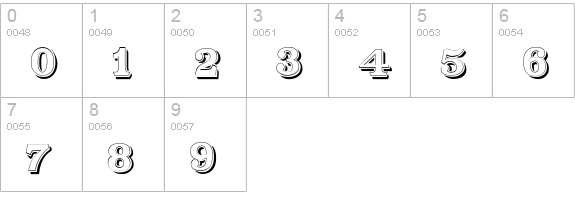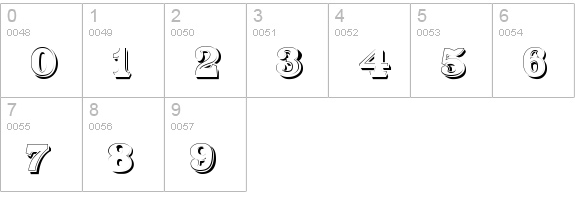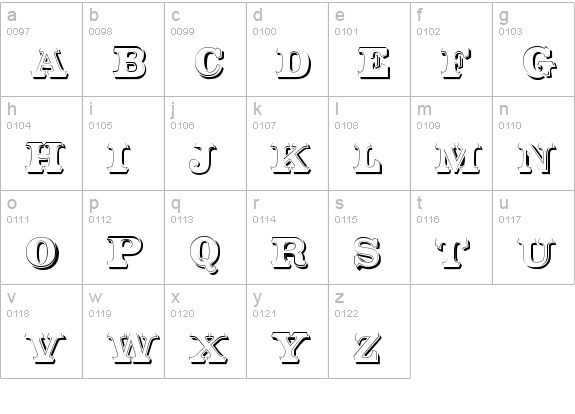
CameoAntique is a stunning and timeless font that will transport you to a world of elegance and sophistication. With its intricate details and vintage charm, this font is perfect for adding a touch of class to any project. The delicate curves and ornate flourishes of CameoAntique evoke a sense of nostalgia, reminiscent of the antique lettering found in old manuscripts and vintage signage. Its unique and refined character make it a versatile choice for a wide range of applications, from invitations and logos to editorial designs and branding. One of the best things about CameoAntique is that it is freely available to download at FontsMarket.com. This means that you can easily access this beautiful font without any cost or hassle. Whether you're a professional designer or a hobbyist, this free font will elevate your work and make it stand out from the crowd. Not only does CameoAntique offer exceptional aesthetics, but it is also highly legible, ensuring that your message is conveyed with clarity and impact. The carefully crafted letterforms and generous spacing make it a pleasure to read, while the subtle vintage touches add a touch of character and charm. Whether you're designing wedding invitations, creating a logo for a luxury brand, or simply want to add a touch of elegance to your personal projects, CameoAntique is the perfect choice. With its timeless beauty and availability as a free download at FontsMarket.com, this font is a must-have for any designer looking to make a lasting impression.